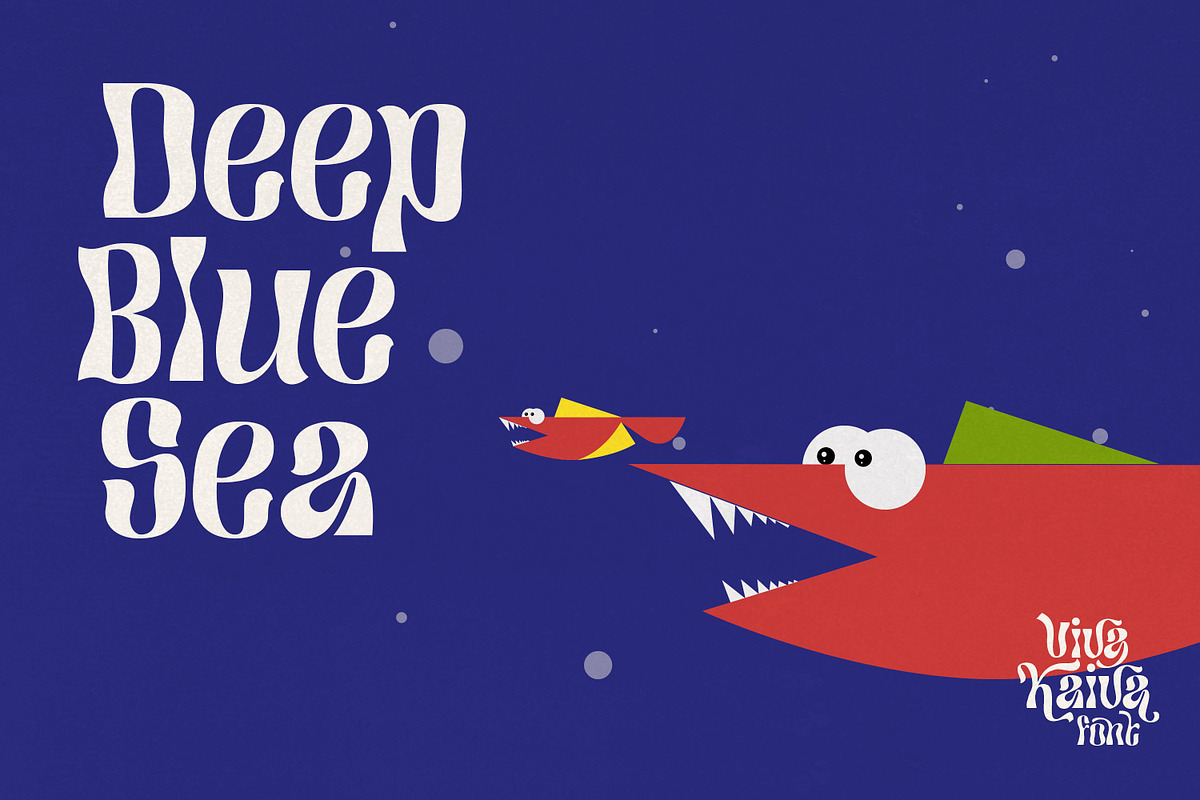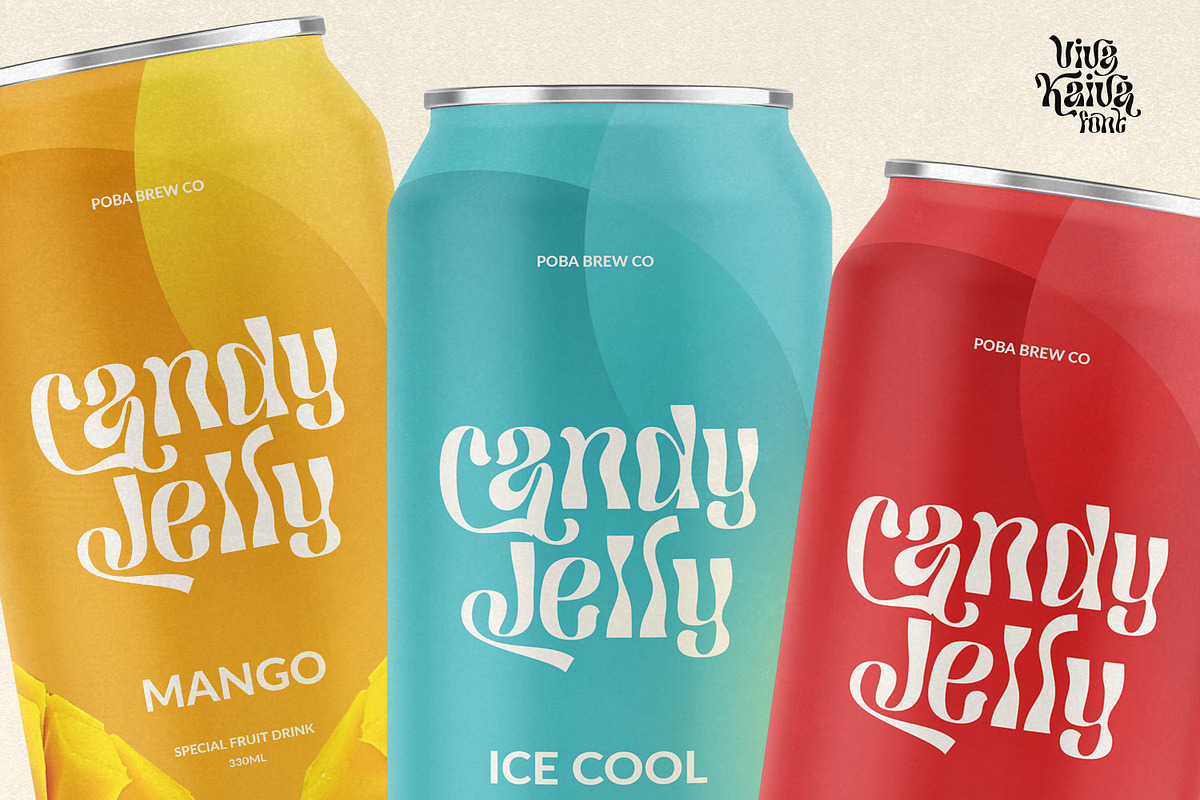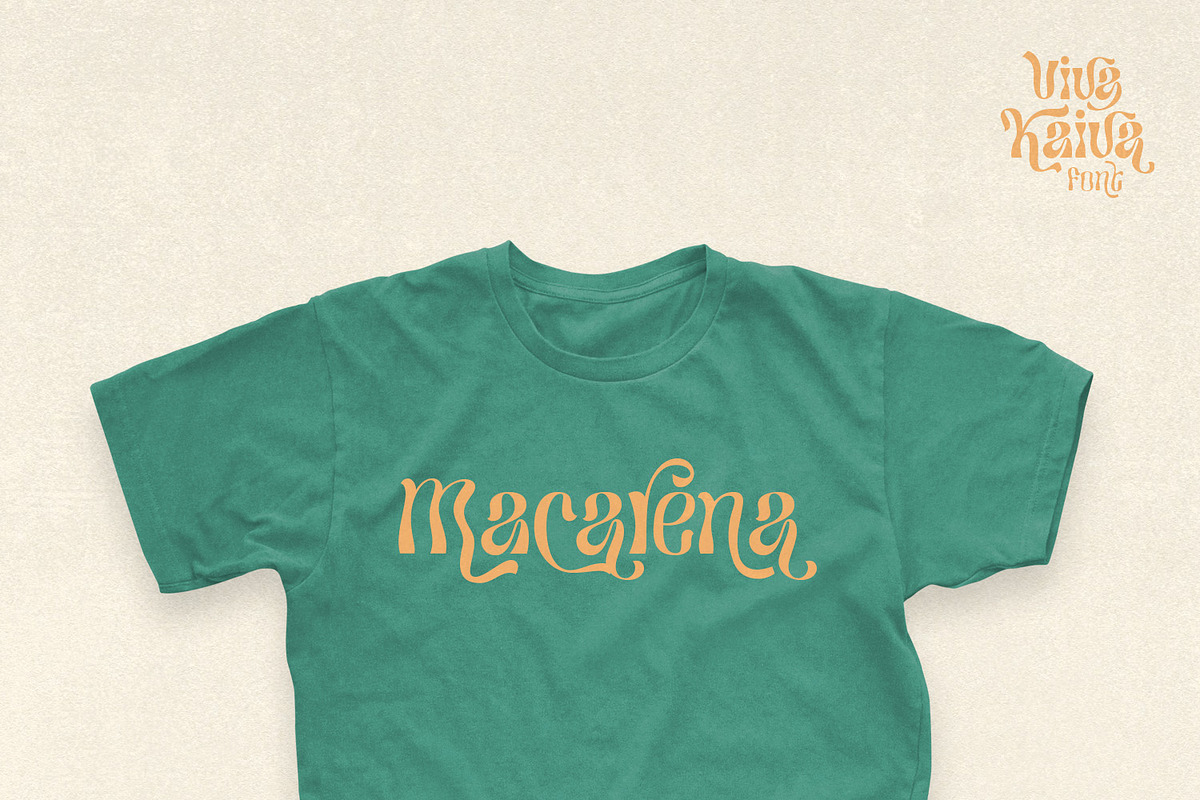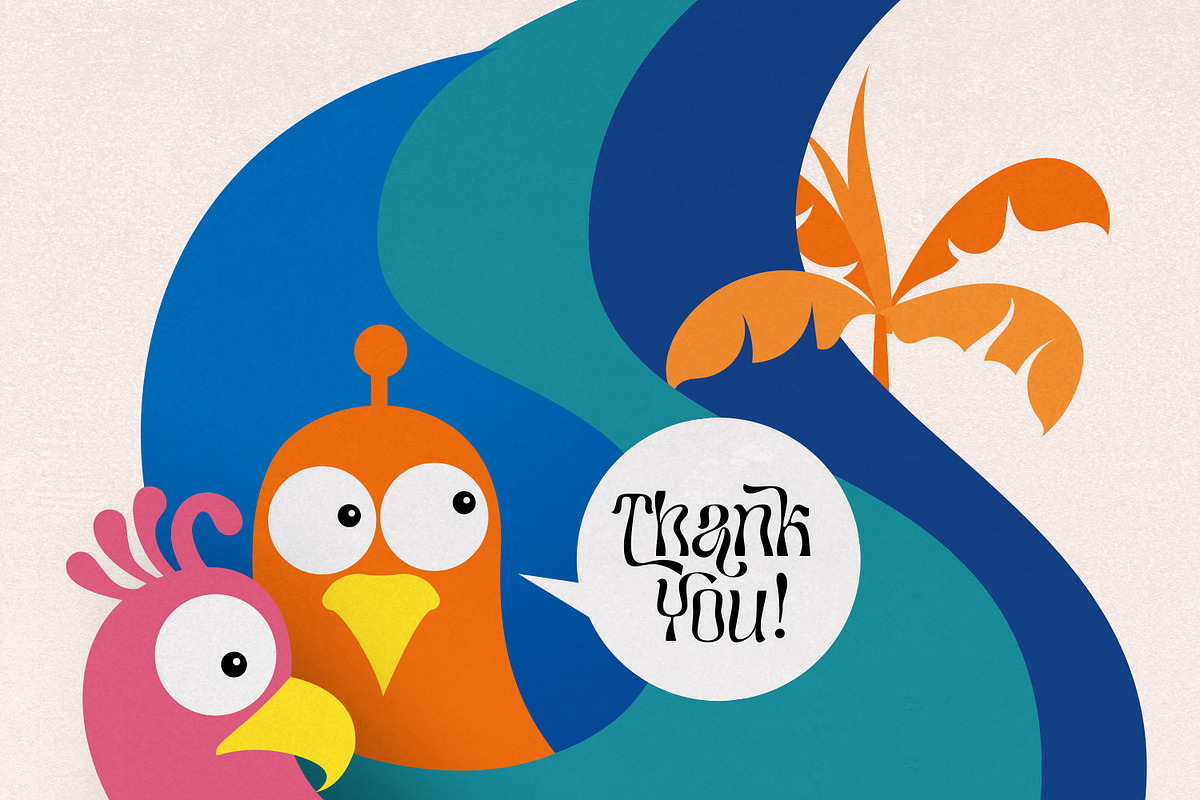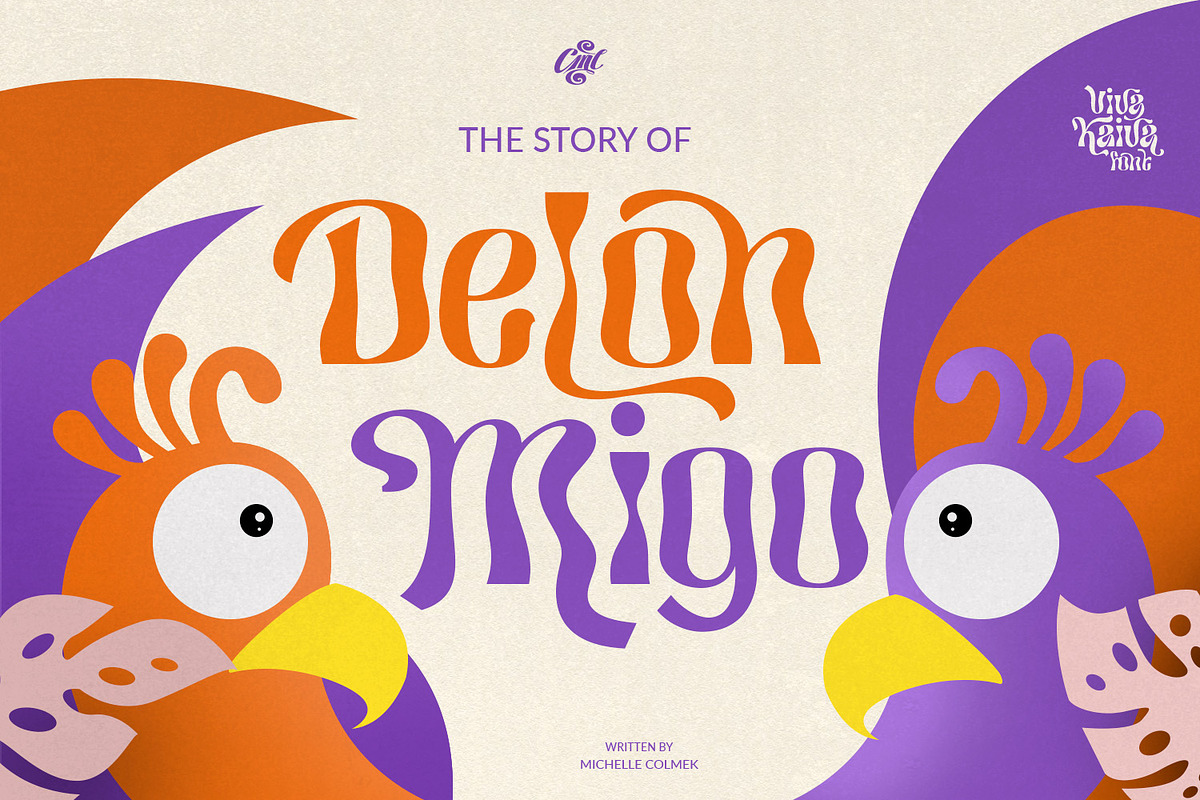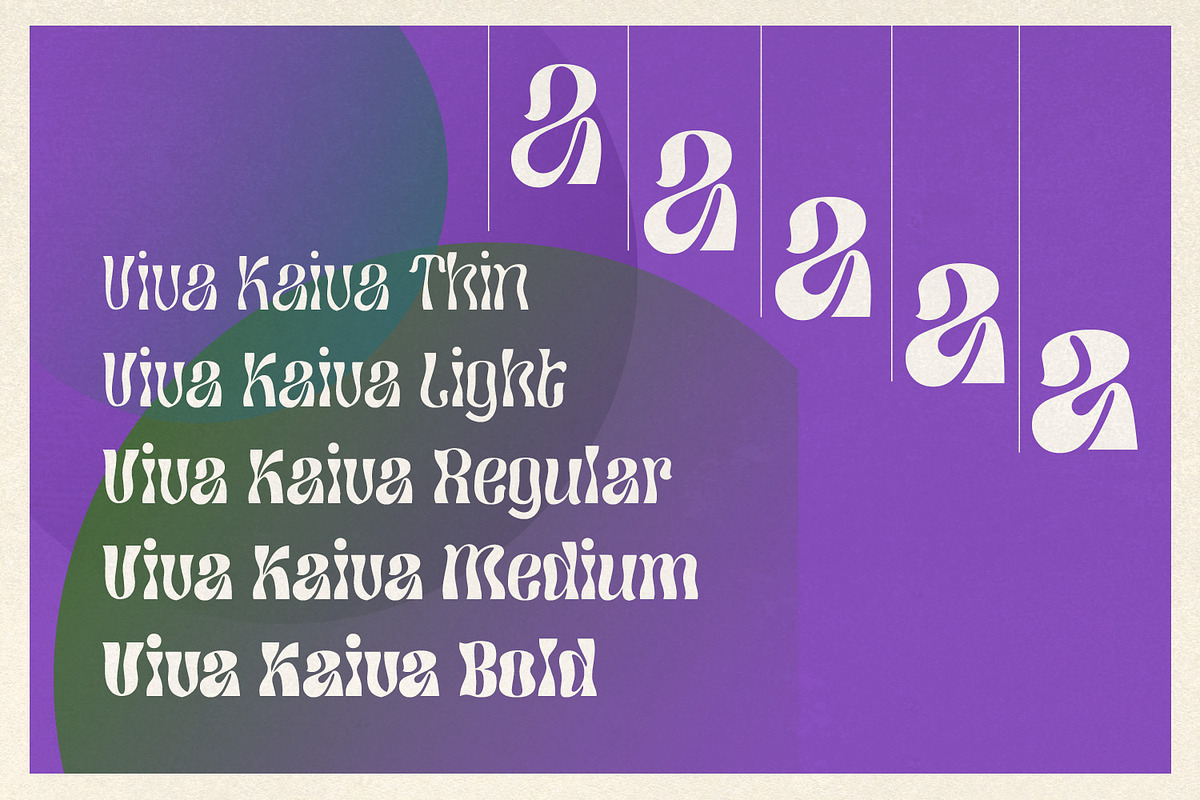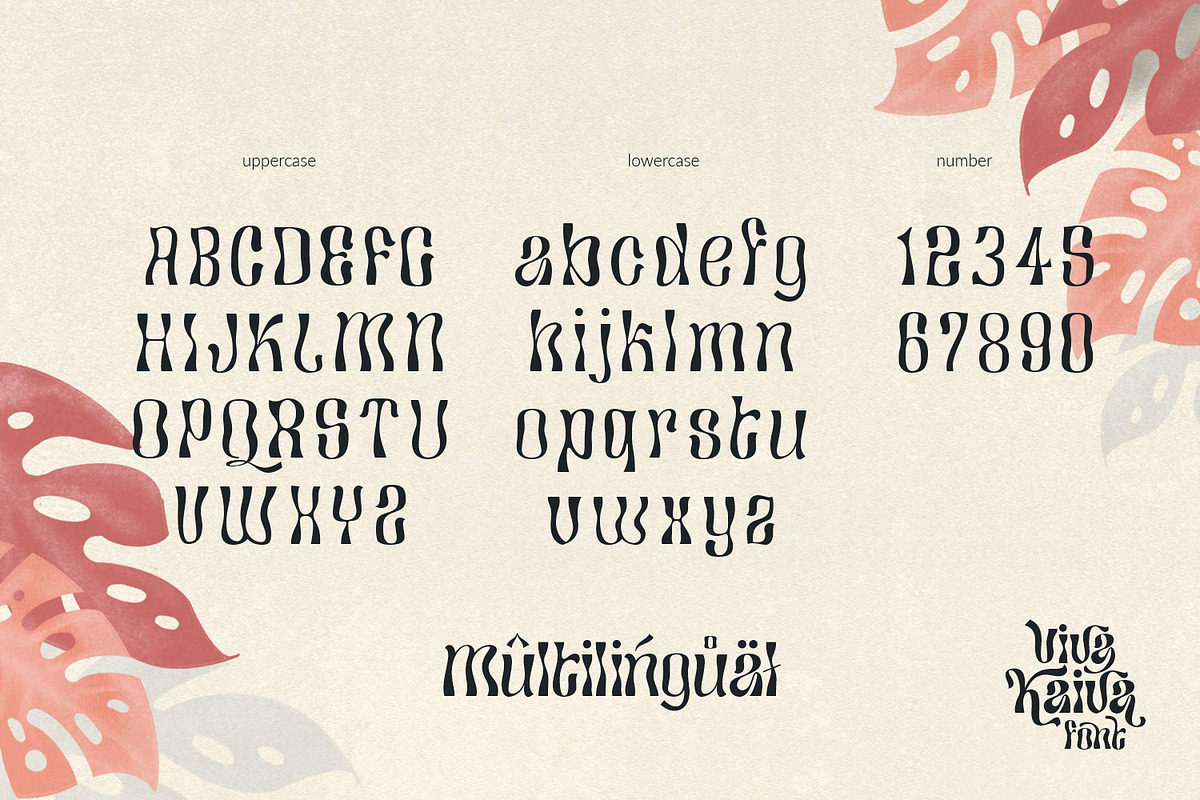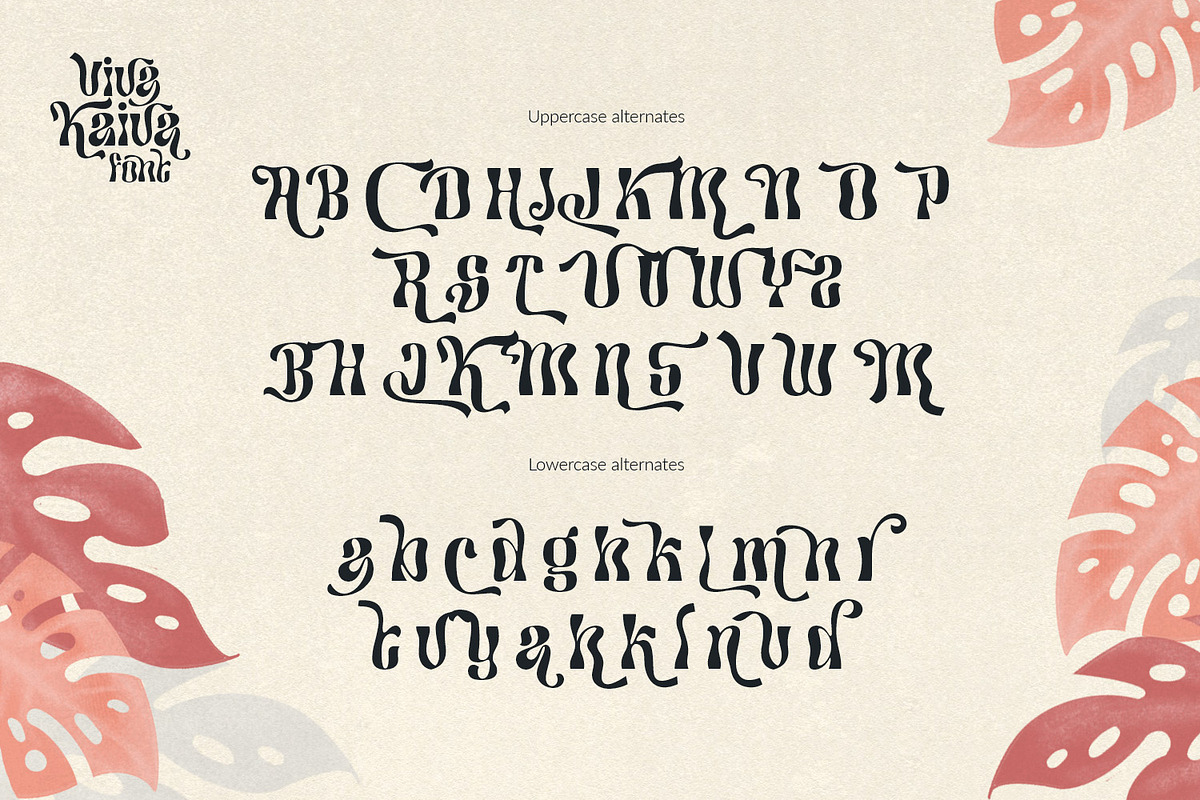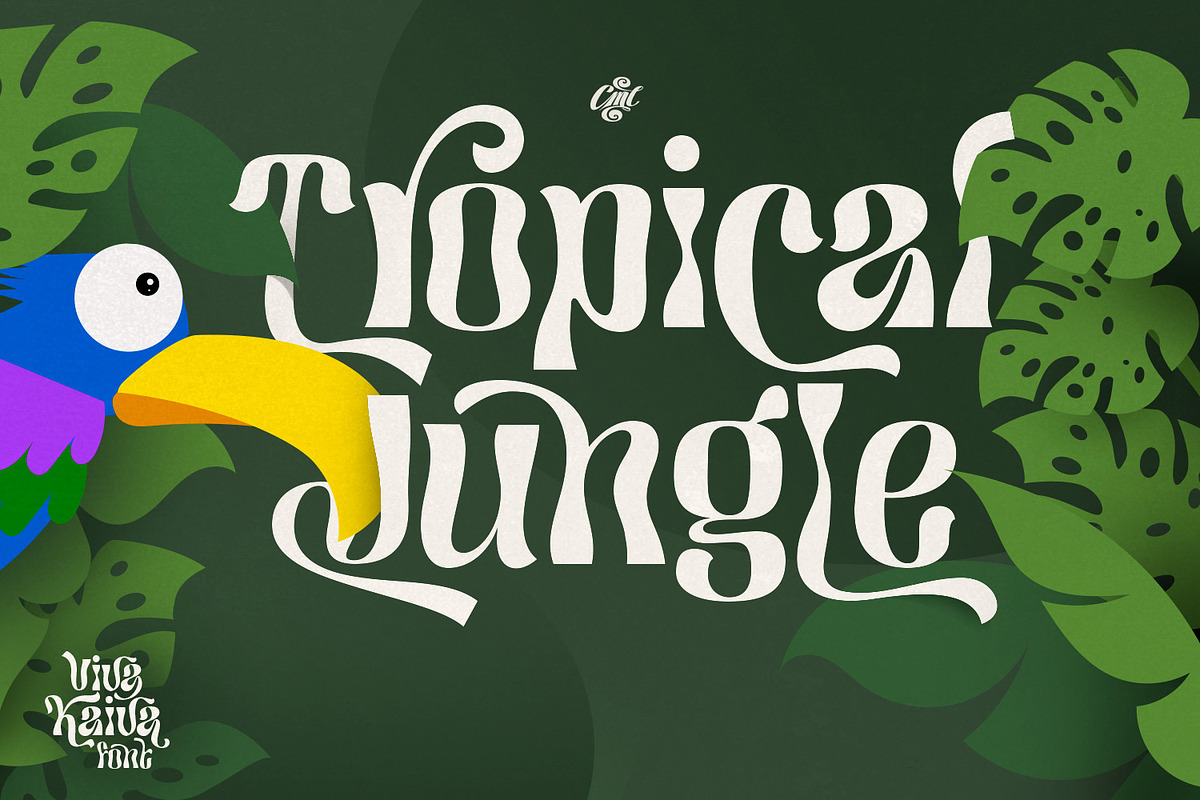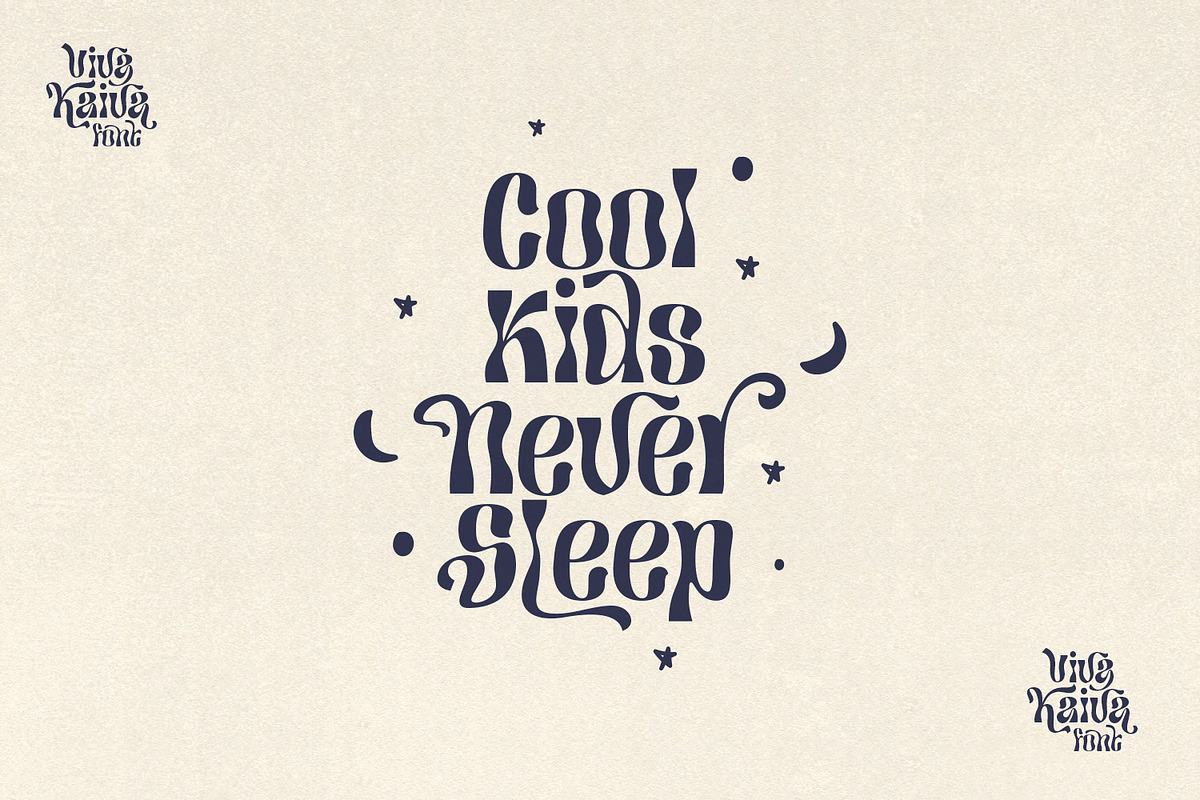
Viva Kaiva - Unique Psychedelic Font
Viva Kaiva is one of our unique fonts with a psychedelic touch. This font has many stylistic alternates that make this font the best option for creating a fun and unique shape for your Illustrations.
Explore your imagination with Viva Kaiva.